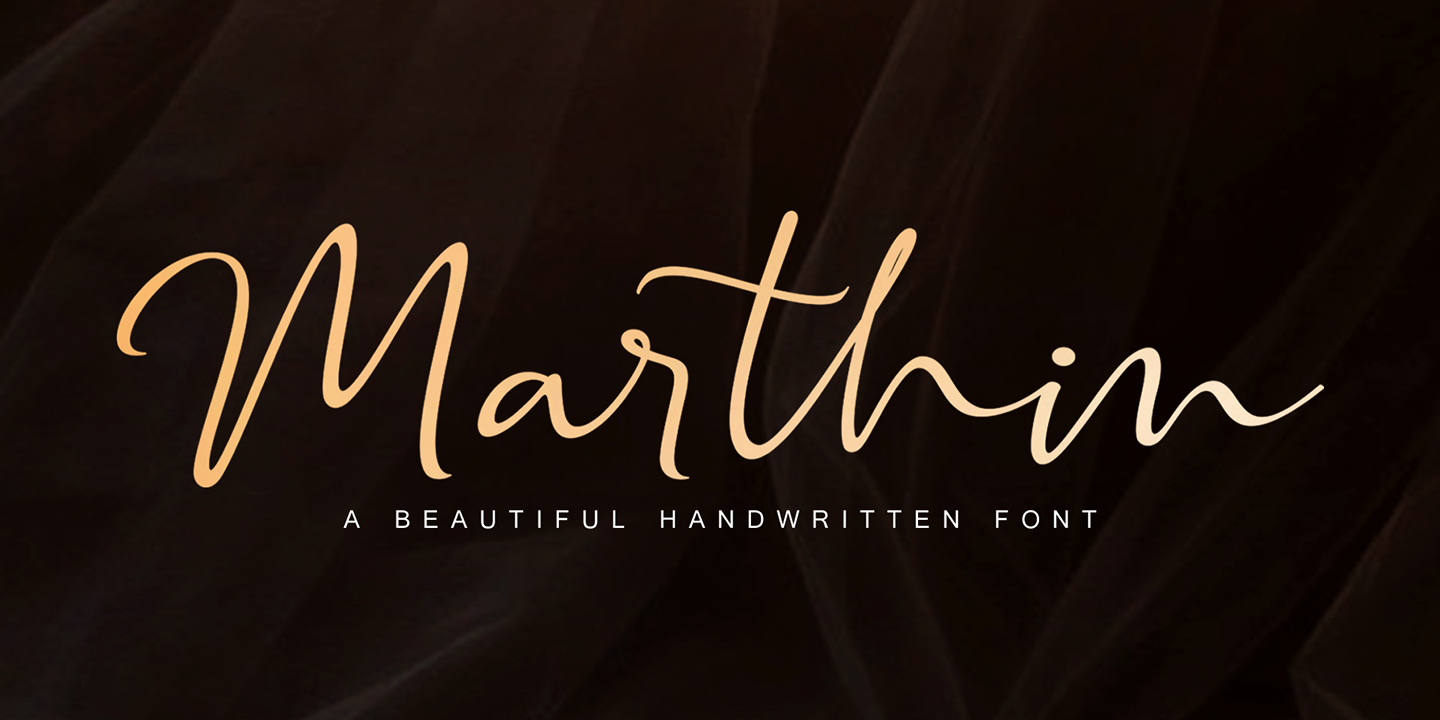
Marthin Font is a charming and versatile handwritten script typeface that brings a personal, authentic touch to any design project. Its natural flow and expressive strokes make it an excellent choice for a wide range of applications where a friendly and approachable feel is desired. Imagine it gracing invitations for casual events, creative blog titles, engaging social media graphics, artisanal product labels, custom t-shirt designs, or unique branding for cafes and small businesses. This font excels at conveying warmth, sincerity, and a handcrafted quality, ensuring your message feels genuine and inviting to your audience.
What makes Marthin Font truly exciting is its ability to infuse designs with a sense of heartfelt spontaneity and personal connection. Unlike overly polished fonts, Marthin Font embraces subtle imperfections that give it a unique character, making it feel less like a manufactured product and more like a sincere message penned by hand. This authentic charm helps create an immediate bond with the viewer, making your content more relatable and memorable. It's a font that doesn't just display text; it tells a story, offering a refreshing departure from conventional typefaces and breathing life into your creative endeavors.
The Marthin Font family typically offers a range of options to enhance its versatility and expressive capabilities. You'll often find it available in a regular weight, with some versions possibly including stylistic alternatives, ligatures, or swashes that provide additional creative flourishes. These extra characters allow designers to customize word forms, creating truly unique and captivating typographic compositions. The comprehensive character set usually covers standard Latin characters, numbers, and a wide array of punctuation marks, making Marthin Font Free Download suitable for various international and creative projects. Its distinctive style ensures that any design it's used in will leave a memorable and impactful impression.